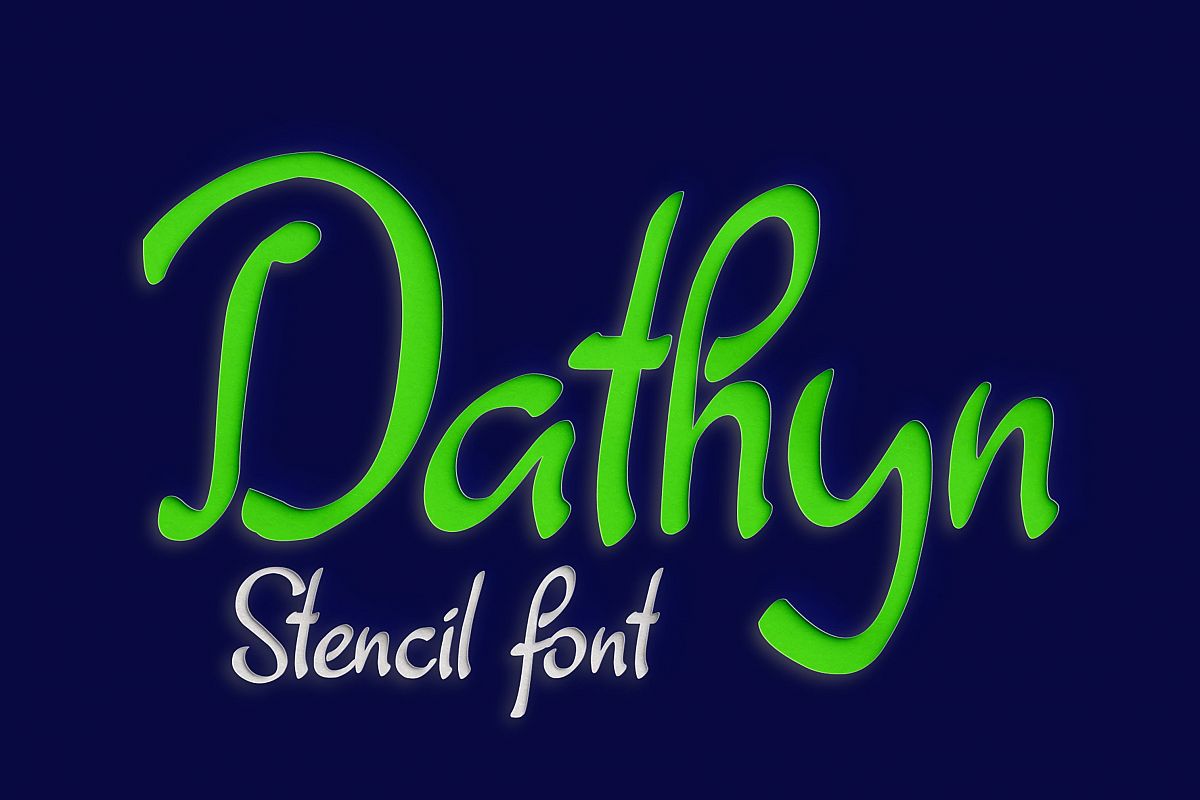
Dathyn Font
Dathyn
Dathyn is a unique and creative stencil script font without closed loops on the letters/numbers/flourishes.
Digital Typeface Studio